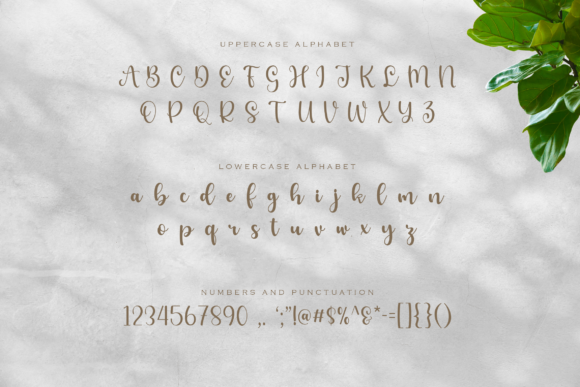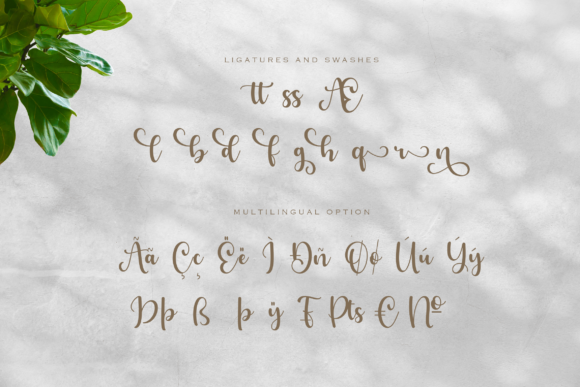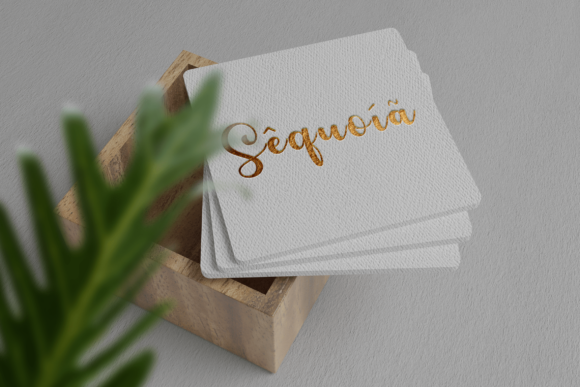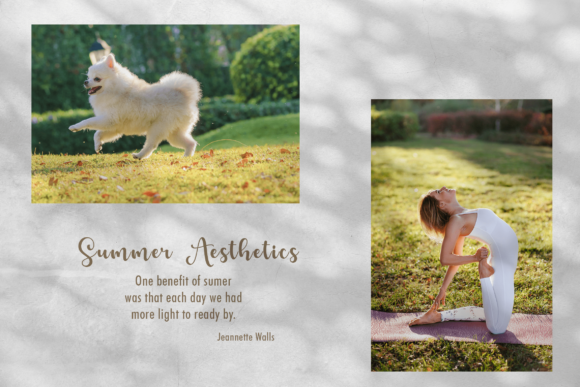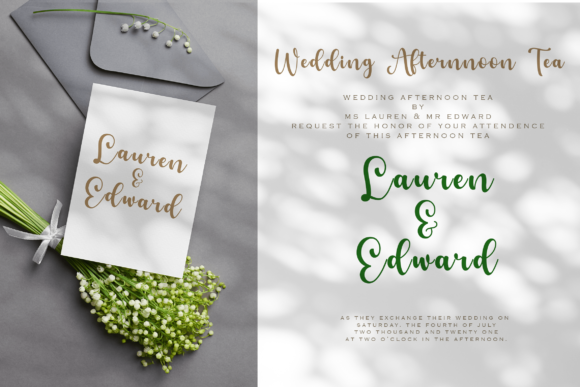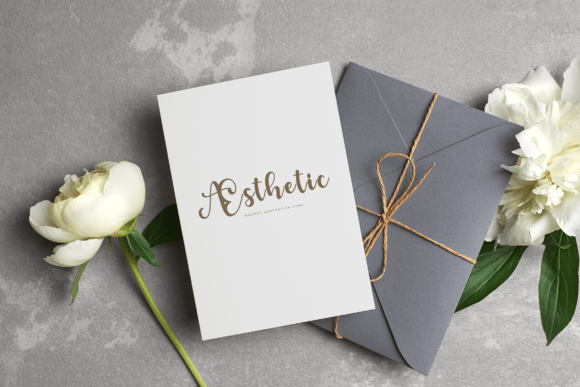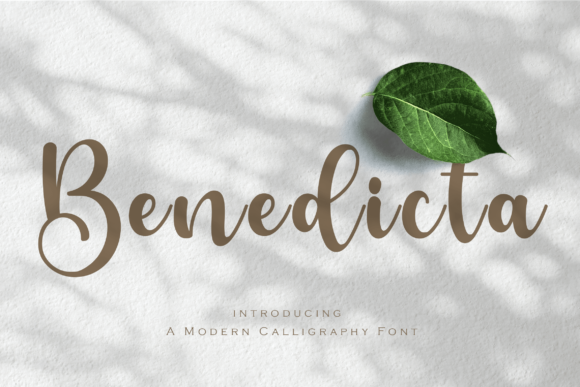
Introducing Benedicta Font: The Epitome of Elegance and Sophistication
In the world of typography, few fonts manage to convey the essence of luxury and refinement as effortlessly as Benedicta. This chic, script font is a masterpiece of design, boasting a level of sophistication that elevates any project it’s used in. Whether you’re a designer looking for the perfect typeface for your next branding venture or a crafter seeking to add a touch of elegance to your handmade creations, Benedicta is sure to impress.
The Design Behind Benedicta
Benedicta’s design is characterized by its flowing lines, stylish alternates, and ligatures, which collectively contribute to its refined appearance. The font’s script style is reminiscent of classic calligraphy, yet it maintains a modern edge that makes it versatile for a wide range of applications. From wedding invitations and luxury branding to packaging and digital media, Benedicta’s adaptability knows no bounds.
One of the standout features of Benedicta is its PUA (Private Use Area) encoding. This means that users can access all the glyphs, swashes, and alternates with ease, allowing for a high degree of customization. PUA encoding eliminates the need for complicated software or technical knowledge, making it straightforward for anyone to utilize the full range of Benedicta’s features. This accessibility is particularly beneficial for designers and crafters who want to experiment with different looks without being hindered by technical barriers.
Key Features of Benedicta Font
- Sophisticated Design: Benedicta’s script font is designed to convey elegance and luxury, making it perfect for high-end projects.
- Stylish Alternates and Ligatures: The font includes a range of stylish alternates and ligatures, allowing for a high level of customization and creativity.
- PUA Encoded: Easy access to all glyphs, swashes, and alternates without the need for special software.
- Versatile: Suitable for a wide range of projects, including branding, packaging, digital media, and handmade crafts.
Applications of Benedicta Font
Benedicta’s versatility makes it an excellent choice for various applications. Here are a few ideas:
- Branding and Logo Design: Use Benedicta to create a luxurious brand identity that stands out.
- Wedding and Event Stationery: Add a touch of elegance to wedding invitations, menus, and other event materials.
- Packaging Design: Elevate your product packaging with a sophisticated and eye-catching typeface.
- Digital Media: Incorporate Benedicta into your website, social media graphics, or digital advertisements for a refined look.
- Handmade Crafts: Perfect for crafters who want to add a professional and elegant touch to their products, such as handmade cards, journals, or fabric designs.
Benedicta font is a powerful tool for designers and crafters alike, offering a unique blend of elegance, sophistication, and versatility. Its stylish design, coupled with PUA encoding for easy access to all glyphs and swashes, makes it an excellent choice for a wide range of projects. Whether you’re aiming to create a luxurious brand identity, design beautiful stationery, or craft unique handmade products, Benedicta is sure to meet your needs and exceed your expectations.
With Benedicta, you don’t just get a font; you gain the ability to transform your projects with a touch of sophistication and elegance. So, why settle for ordinary when you can create something truly extraordinary with Benedicta?